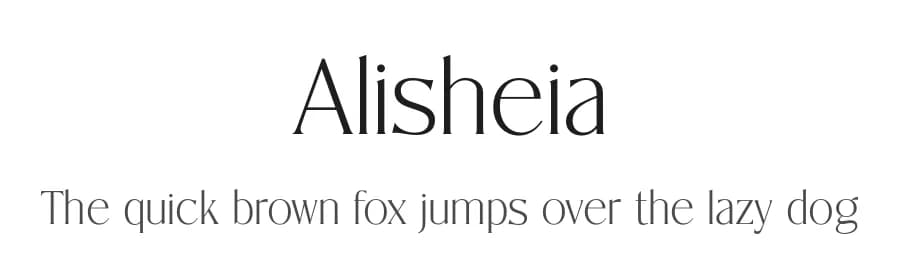
About Alisheia Font
Alisheia Specifications
| Designer | Dora Typefoundry |
Alisheia Font is a versatile serif font that works for both headings and body text. Pair it with a contrasting sans-serif or slab serif font to add visual interest and a clear distinction between titles and body copy.
Alisheia Font